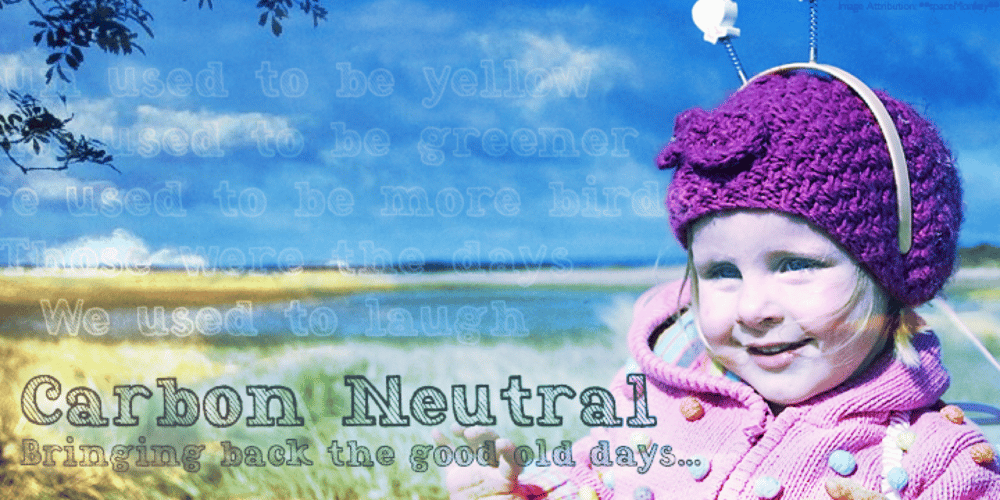
Carbon Neutral Font Family was designed by Luke William Turvey and published by Okaycat. Carbon Neutral contains 1 styles and family package options. Carbon Neutral has a distinctly human style – lettering done cleanly with care — not mass-produced nor mechanical. Get smooth typography which upon closer inspection is gritty & grassroots. The small details make this font friendly & inviting. Carbon Neutral has an exceptionally high level of detail which may cause your graphics program to operate slowly. Carbon Neutral is extended, containing West European diacritics & ligatures, making it suitable for multilingual environments & publications.